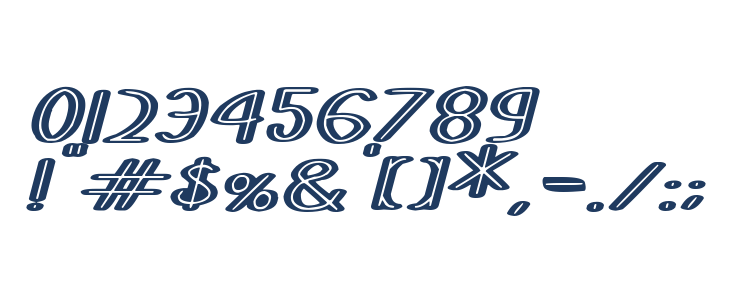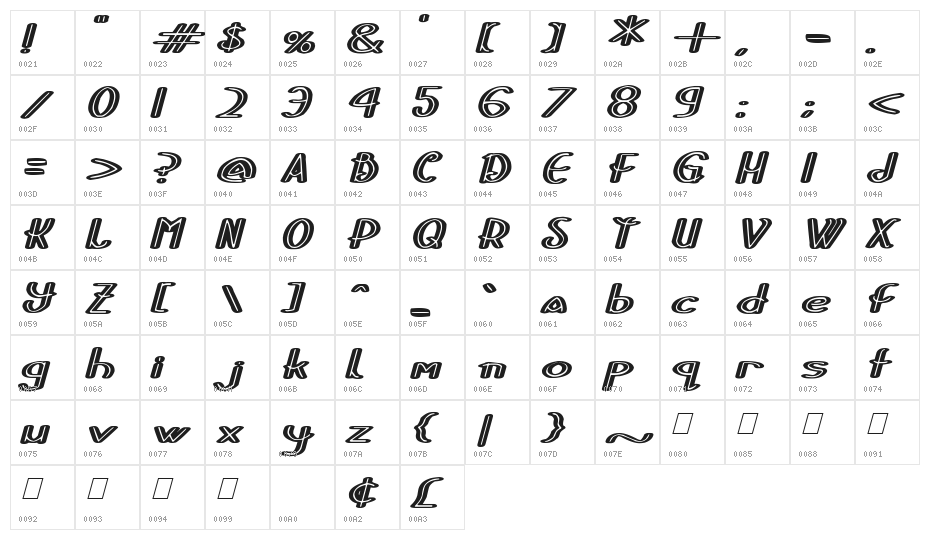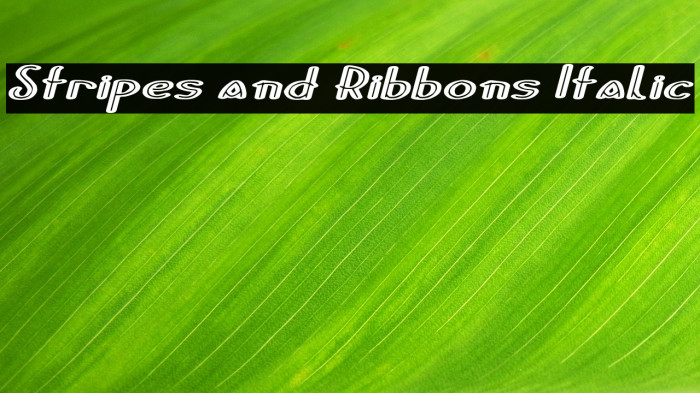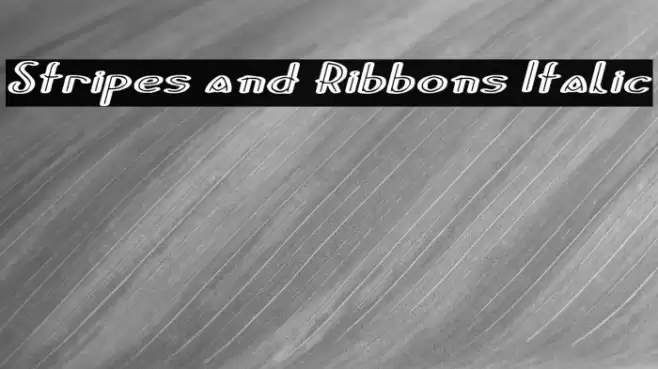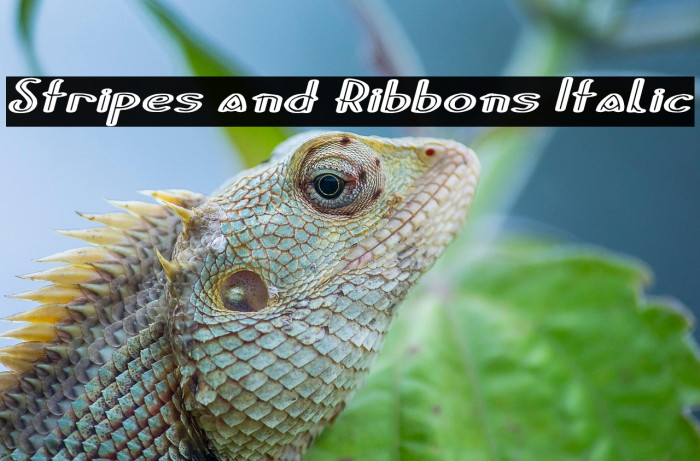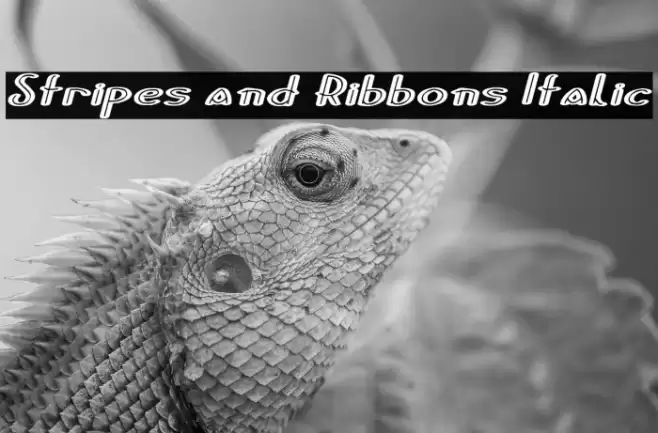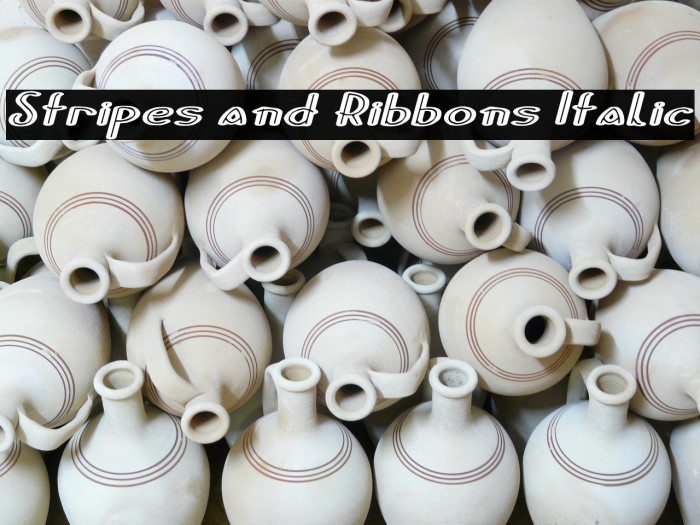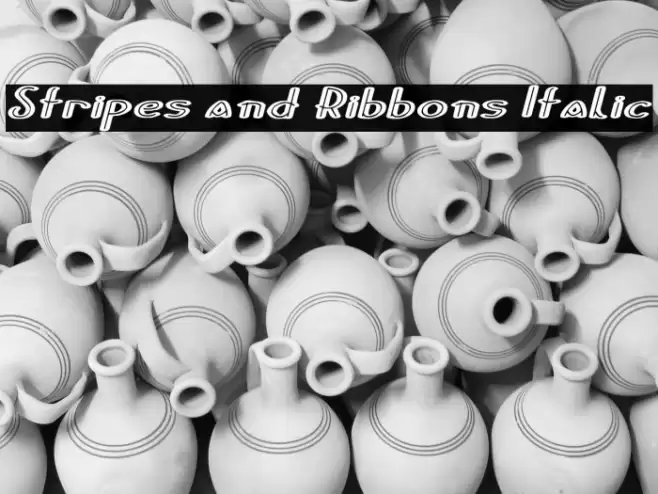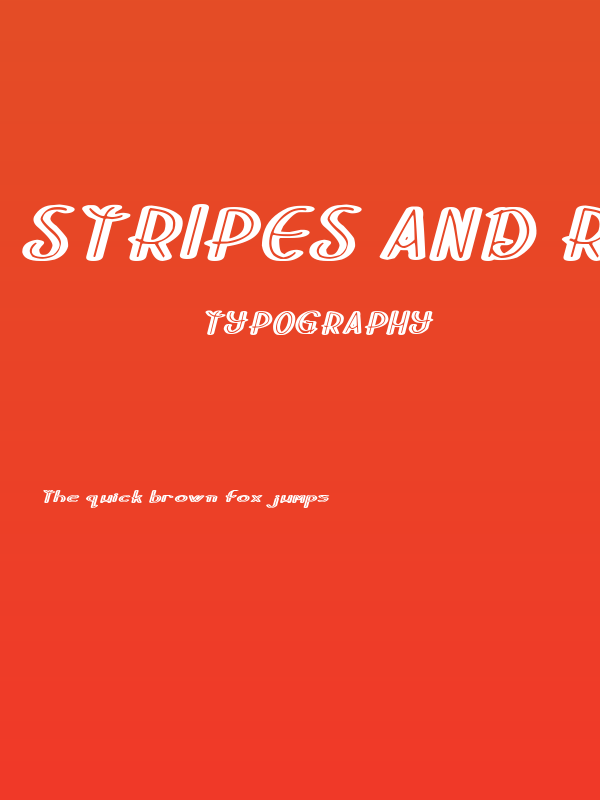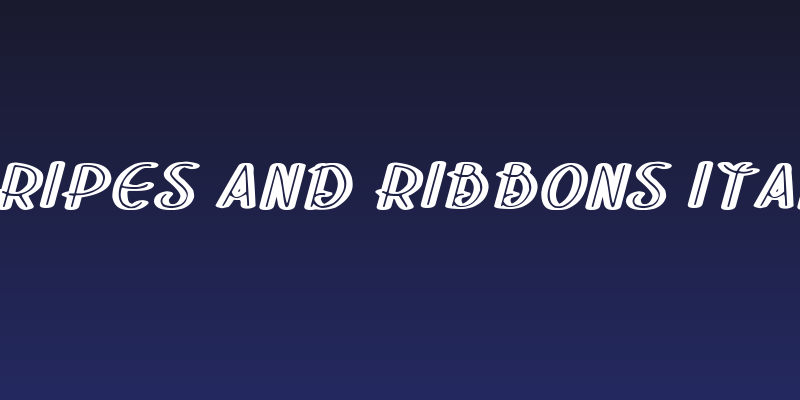
Stripes and Ribbons Italic Font
Stripes and Ribbons Italic Description
This font features a playful and dynamic design with a ribbon-like appearance. The characters are italicized, adding a sense of movement and fluidity. Each letter is outlined, creating a bold and eye-catching effect. The strokes are consistent in width, giving the font a uniform look. The uppercase and lowercase letters maintain a cohesive style, while the numbers and special characters complement the overall design. This font is ideal for projects that require a fun and energetic vibe.